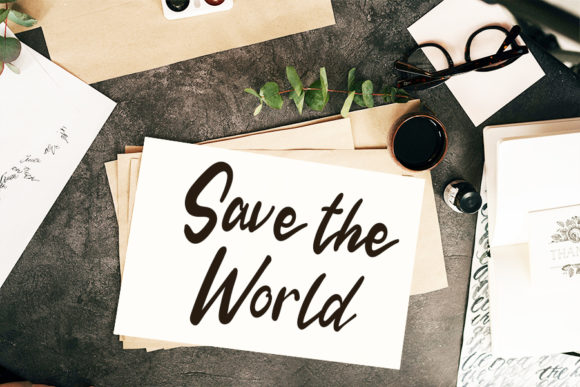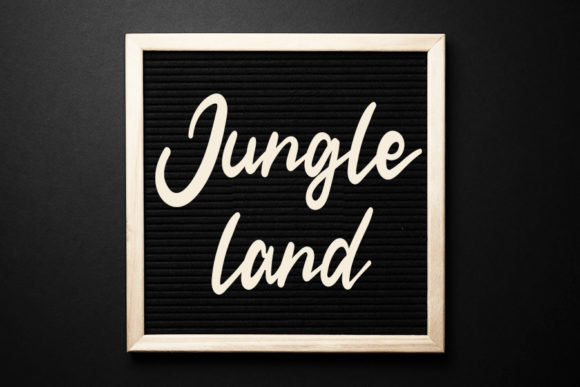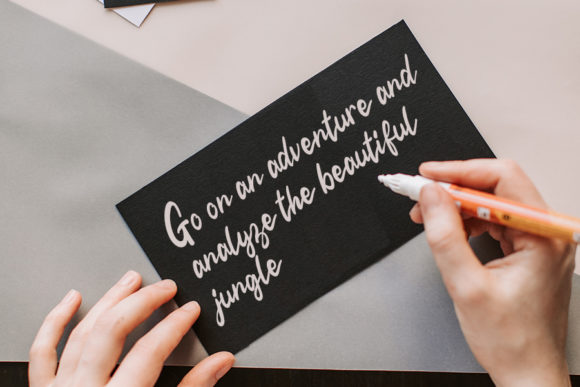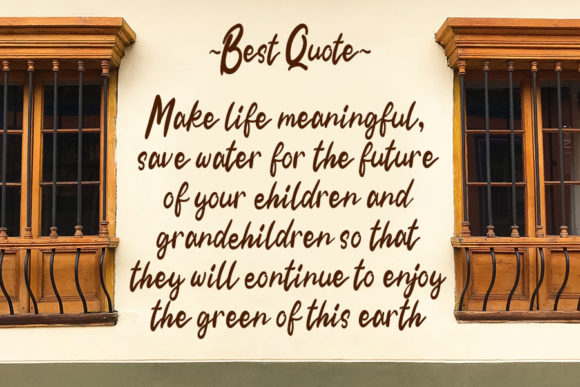
Introducing Go Green Font: The Perfect Addition to Your Design Arsenal
In the world of design, fonts play a crucial role in conveying the tone and personality of a project. Whether you’re a seasoned designer or a crafty DIY enthusiast, finding the right font can make all the difference. If you’re on the hunt for a stylish and delicate handwritten font that exudes a clean and flowing vibe, look no further than Go Green Font.
What is Go Green Font?
Go Green Font is a beautiful, handcrafted font that is sure to elevate your designs to the next level. Its unique blend of elegance and playfulness makes it an excellent choice for a wide range of projects, from wedding invitations and party decorations to branding materials and digital graphics.
Key Features of Go Green Font
- Handwritten style: Go Green Font boasts a charming, handwritten aesthetic that adds a personal touch to any design.
- Clean and flowing vibe: The font’s smooth, flowing lines create a sense of movement and energy, making it perfect for designs that require a dynamic feel.
- Delicate and stylish: Go Green Font is characterized by its delicate, cursive strokes, which lend a touch of sophistication to any project.
- Versatile: This font is suitable for a wide range of applications, from digital graphics and social media posts to print materials and crafts.
Why Choose Go Green Font?
With so many fonts available, it can be challenging to choose the right one for your project. Here are just a few reasons why Go Green Font stands out from the crowd:
- Unique and eye-catching: Go Green Font’s distinctive style is sure to grab attention and set your design apart from the rest.
- Easy to read: Despite its delicate nature, Go Green Font is remarkably legible, making it perfect for designs that require a clear, easy-to-read text.
- Customizable: With Go Green Font, you can experiment with different colors, sizes, and styles to create a look that perfectly suits your project.
How to Use Go Green Font in Your Designs
Go Green Font is incredibly versatile, and can be used in a variety of design applications. Here are a few ideas to get you started:
- Wedding invitations and party decorations: Add a touch of elegance and whimsy to your wedding invitations, party decorations, and other celebratory materials with Go Green Font.
- Branding materials: Use Go Green Font to create eye-catching logos, business cards, and other branding materials that showcase your unique style.
- Digital graphics and social media posts: Add a personal touch to your digital graphics and social media posts with Go Green Font’s charming, handwritten style.
- Crafts and DIY projects: Go Green Font is perfect for crafty DIY enthusiasts who want to add a touch of personality to their projects, from handmade cards and gift tags to iron-on designs and more.
Tips and Tricks for Working with Go Green Font
To get the most out of Go Green Font, here are a few tips and tricks to keep in mind:
- Experiment with colors: Go Green Font looks stunning in a range of colors, from soft pastels to bold brights. Don’t be afraid to experiment and find the perfect hue for your design.
- Play with sizes: Go Green Font can be used in a range of sizes, from delicate captions to bold headlines. Experiment with different sizes to create visual interest and hierarchy in your design.
- Mix and match: Go Green Font pairs beautifully with other fonts and design elements. Try combining it with bold graphics, patterns, or textures to create a unique and eye-catching design.
Go Green Font is a stylish and delicate handwritten font that is sure to become a staple in your design arsenal. With its clean and flowing vibe, unique style, and versatility, it’s the perfect choice for designers and crafters who want to add a touch of personality to their projects. Whether you’re working on a wedding invitation, branding materials, or a DIY craft, Go Green Font is sure to impress. So why wait? Download Go Green Font today and start creating stunning designs that showcase your unique style!